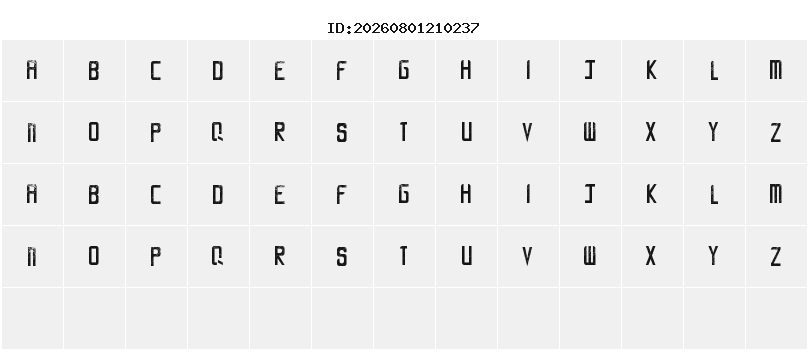
• Font Name: LA CALLE 6
• Full Font Name: LA CALLE 6 - LJ-Design Studios Grunge
• Version: Version 1.00 March 5, 2015, initial release
• Designer: Luis Jaramillo
• Manufacturer: LJ-Design Studios
• Description: Una historia urbana vivida en mi pueblo
About LA CALLE 6.ttf
LA CALLE 6.ttf is a modern, elegant sans-serif font designed for ultimate readability and visual harmony. Perfect for branding, headlines, web design, and print materials.